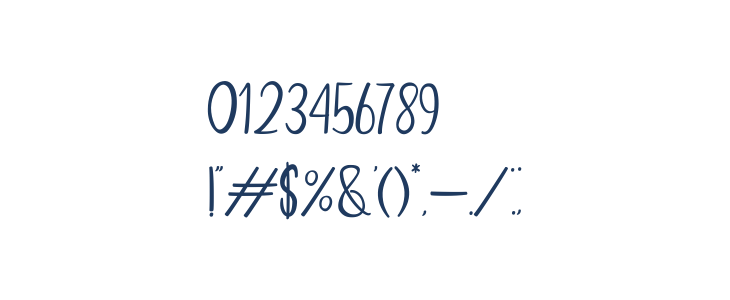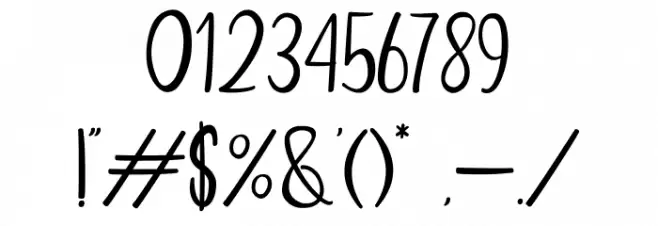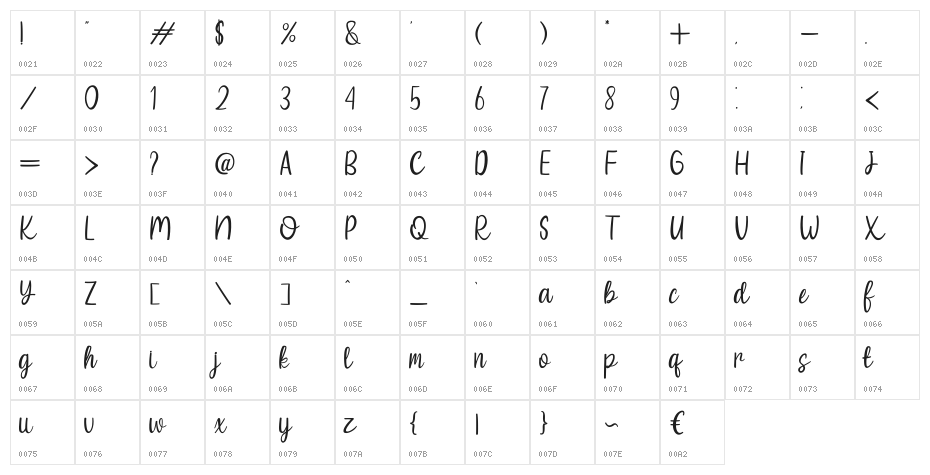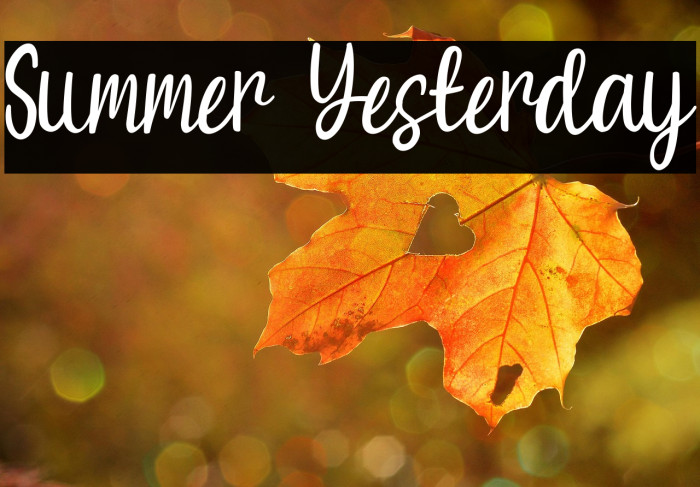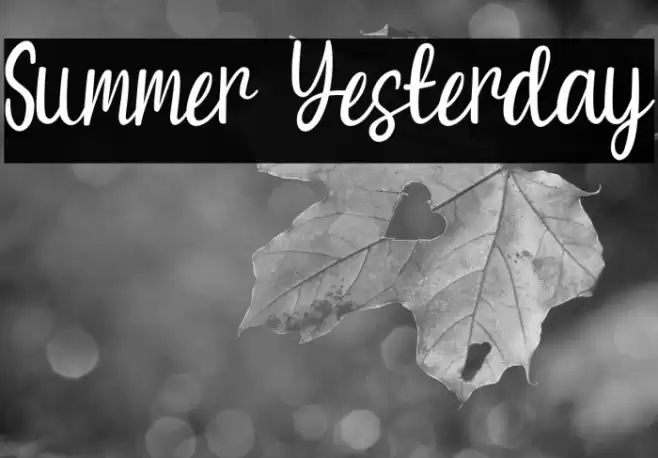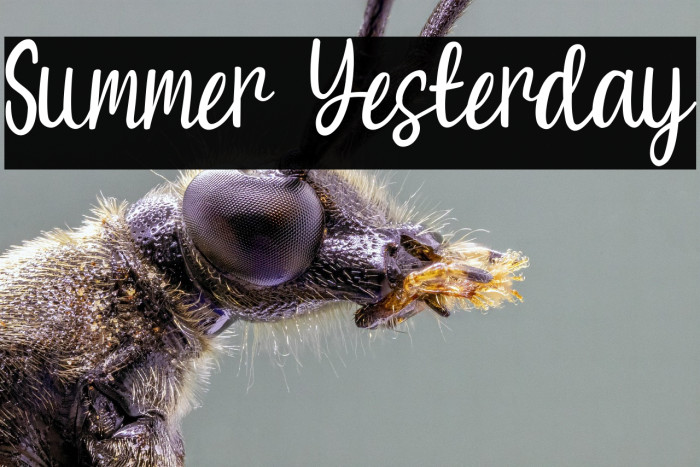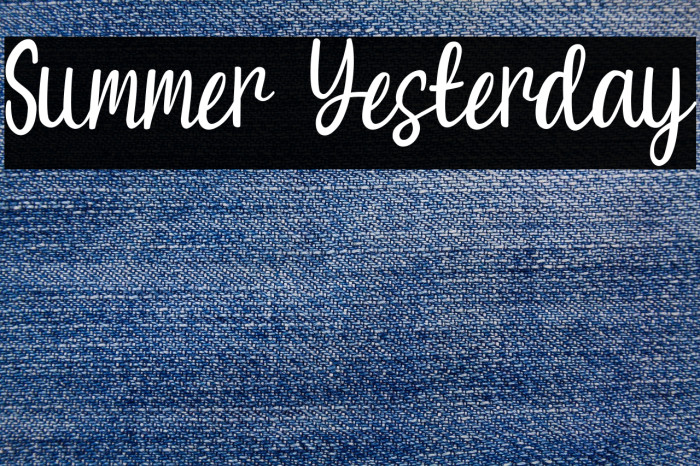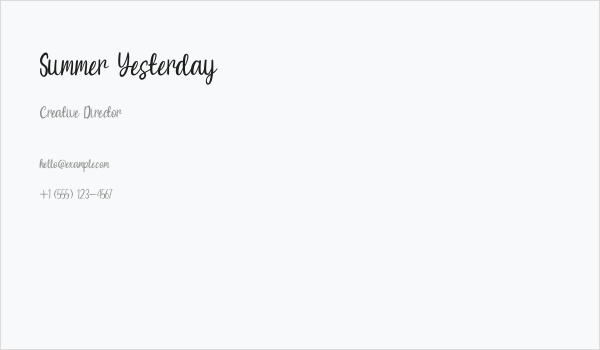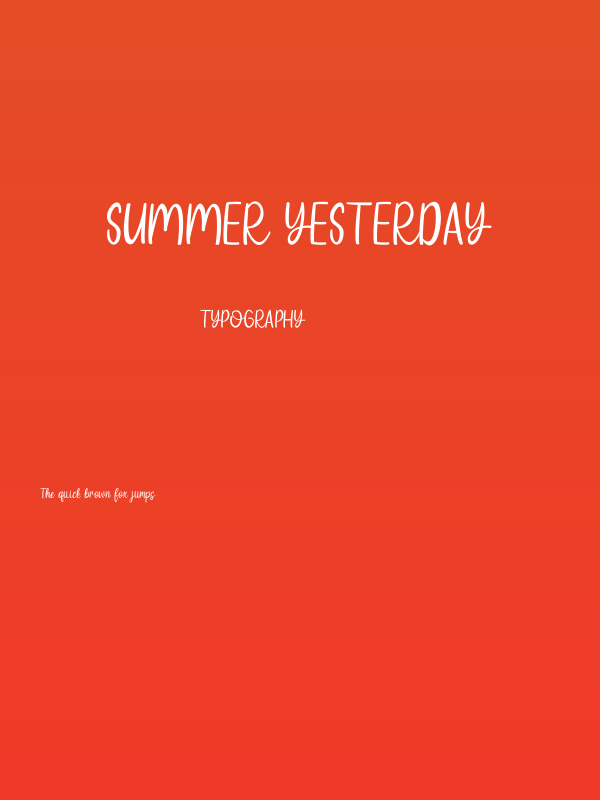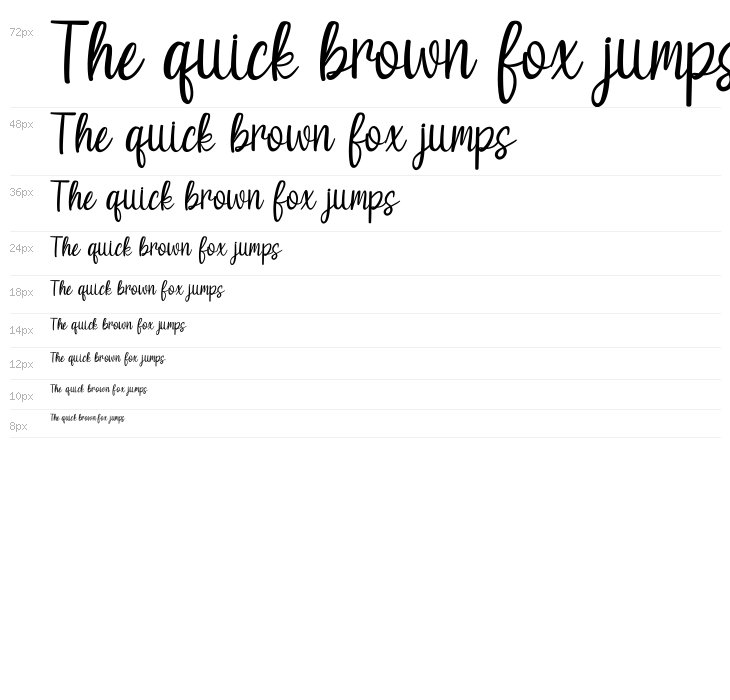
Summer Yesterday Font
Summer Yesterday Description
This font features a playful and casual handwritten style, characterized by its smooth, flowing lines and slightly irregular shapes. The uppercase letters are bold and rounded, giving a friendly and approachable feel, while the lowercase letters maintain a consistent flow with a slight slant, adding to the handwritten aesthetic. The numerals are clear and legible, matching the overall style of the alphabet. Special characters are well-integrated, maintaining the font's cohesive look. This font is perfect for projects that require a personal touch, such as invitations, greeting cards, or branding for creative businesses.
| Proposed Projects | Ideal for invitations, greeting cards, personal branding, and creative projects. |